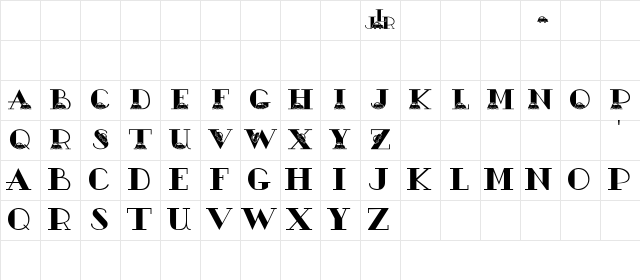
JLR Bubble Car Regular
Design Context for JLR Bubble Car
JLR Bubble Car has an approachable, lighthearted character - its loose, expressive forms are well-suited to children's content, casual branding, and fun-first design.
Well-suited to food and beverage brands with personality, educational materials, and fun-forward identities.
Font Pairing: Pairs well with a rounded or humanist sans for body copy, maintaining the friendly tone without relying on JLR Bubble Car to carry extended reading.
Pro Tip: Use JLR Bubble Car at larger display sizes where its expressive character can land. Pair with a clean, simple sans for body copy to maintain readability.